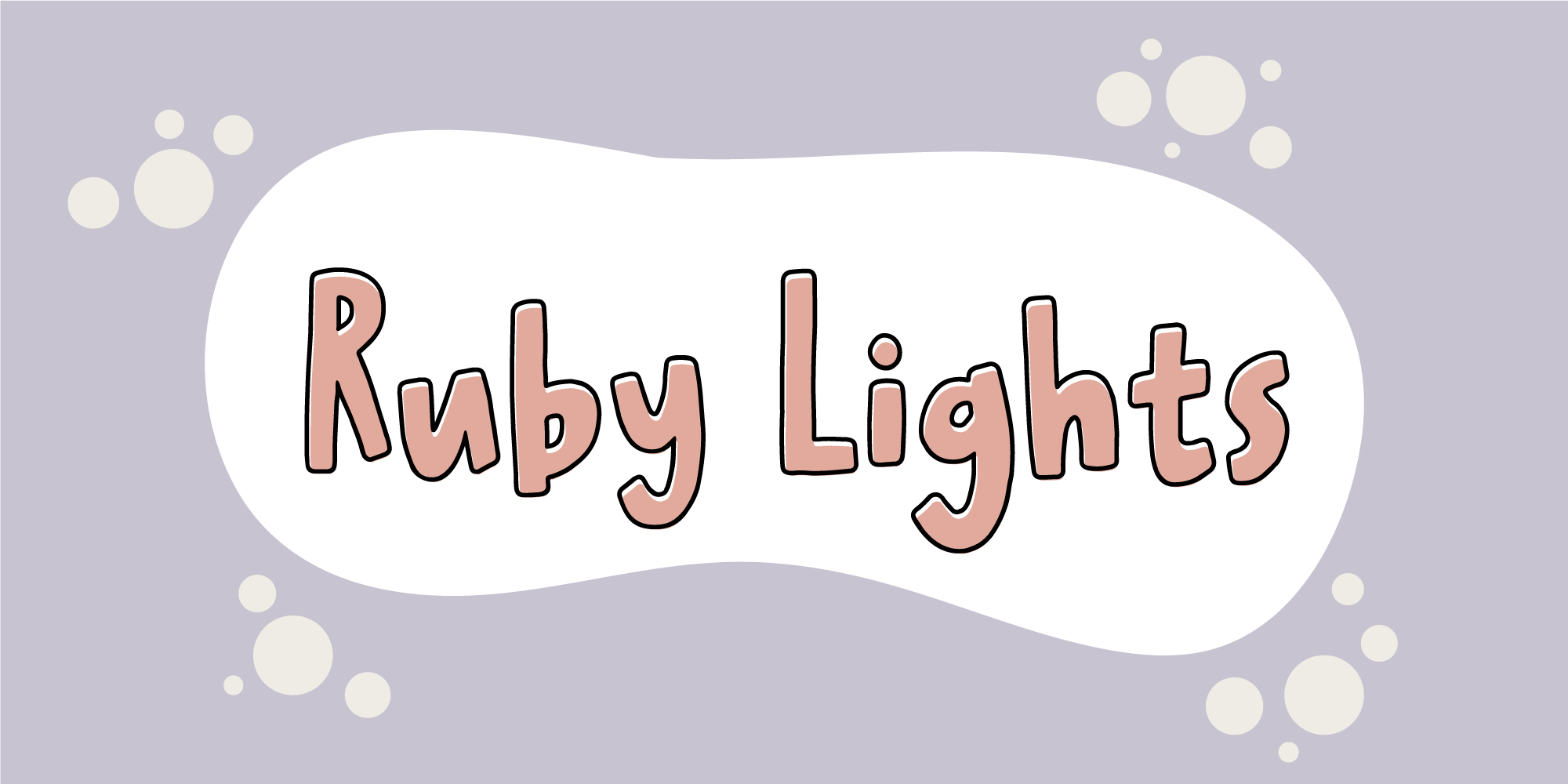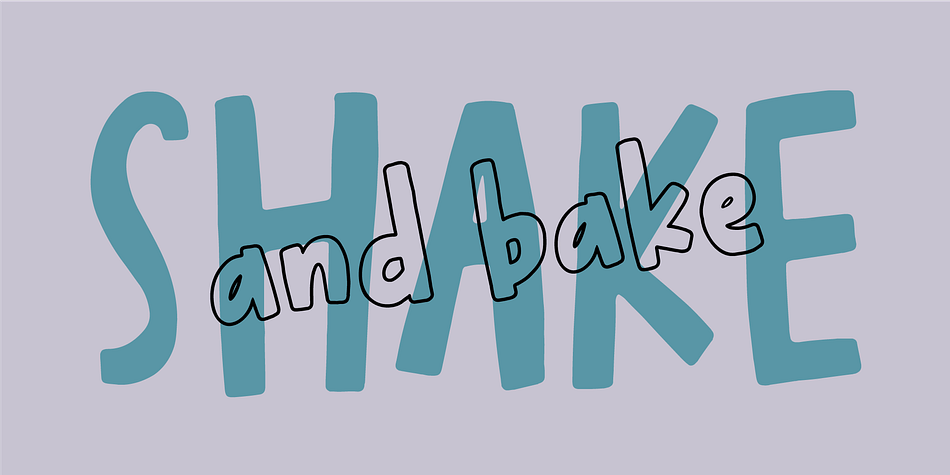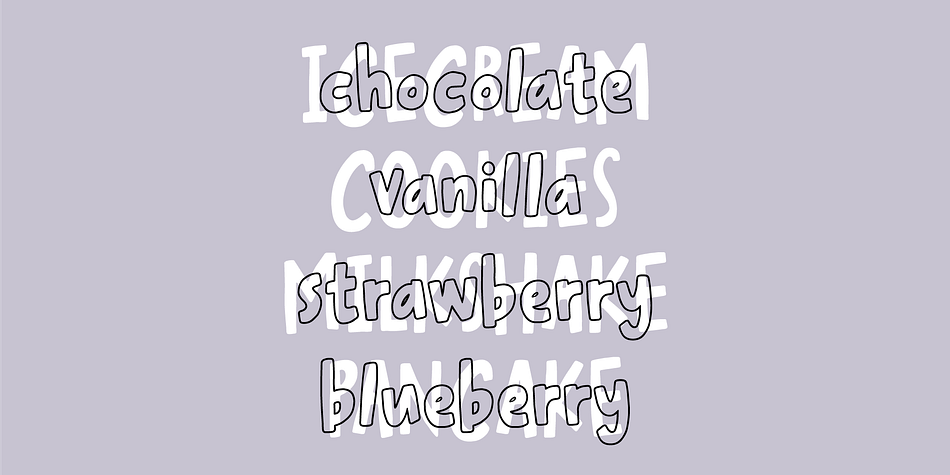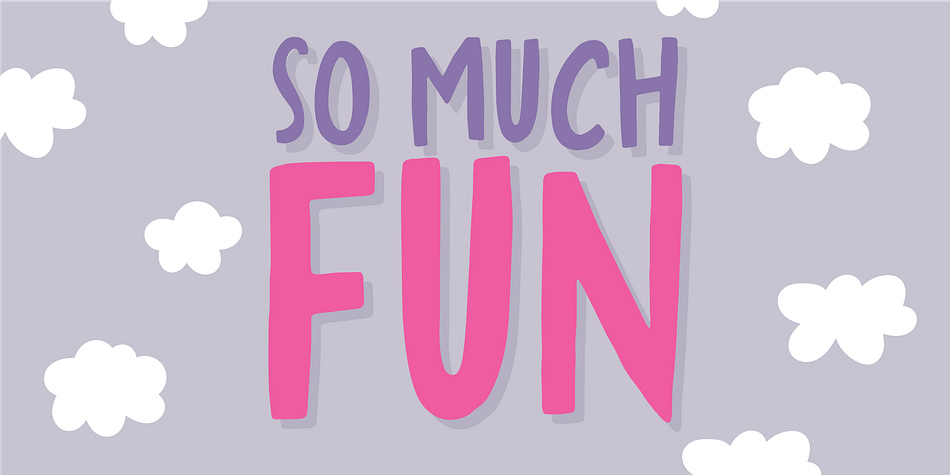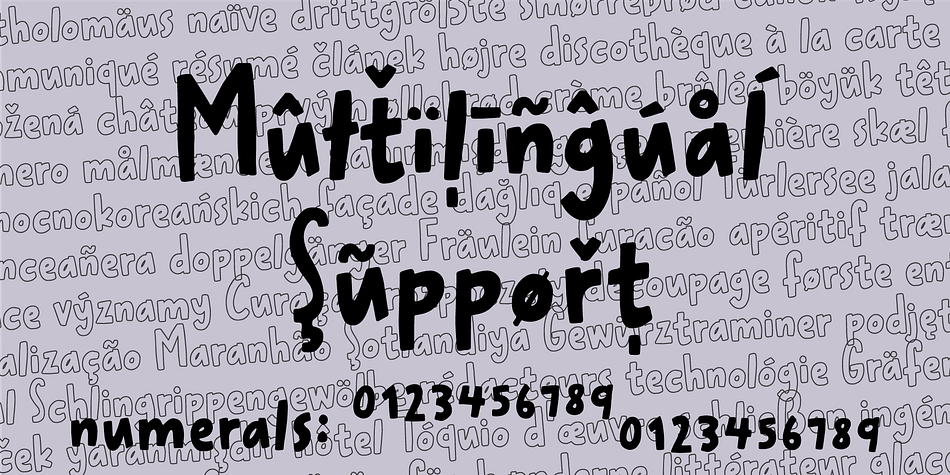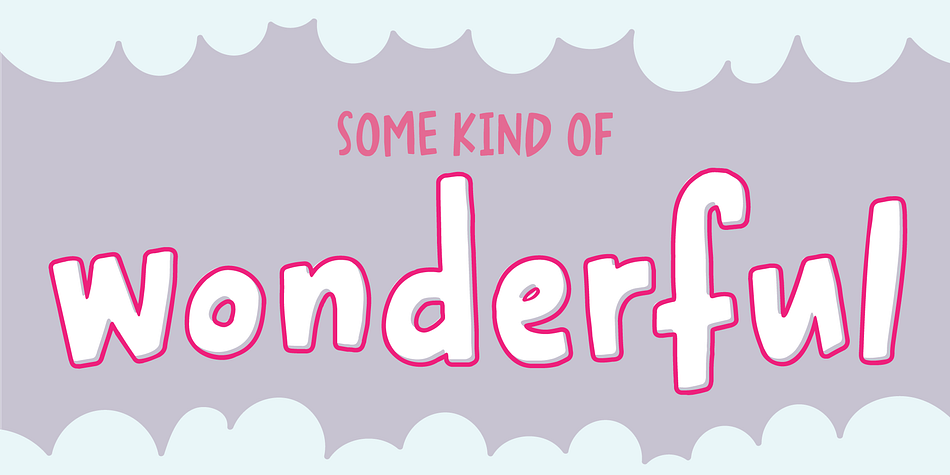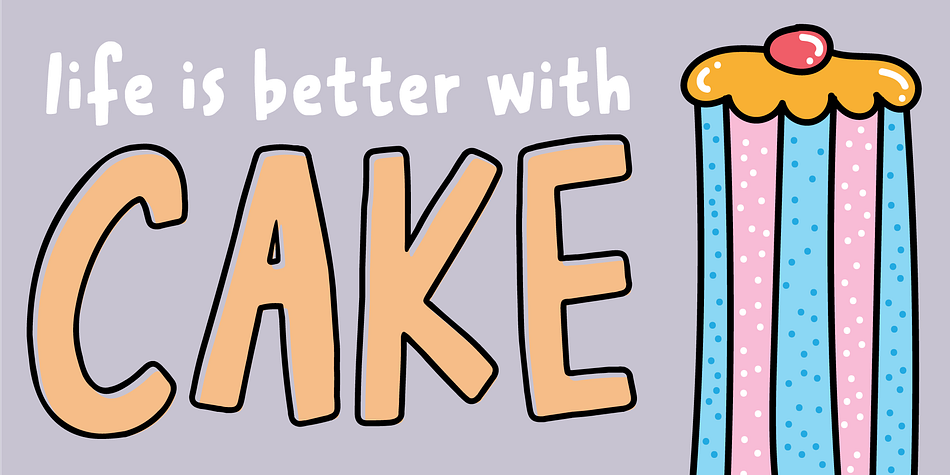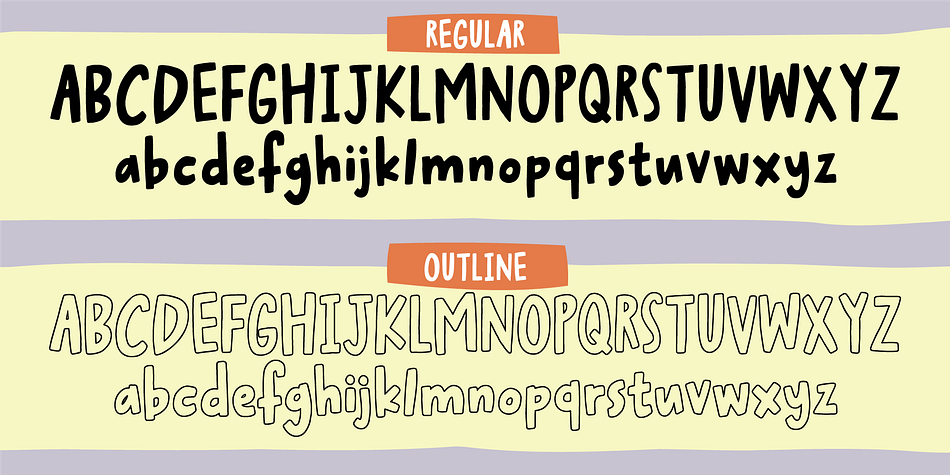
Ruby Lights
Designed by Jakob Fischer, Ruby Lights is a hand drawn and kids font family. This typeface has two styles and was published by Bogstav.
Say hello to Ruby Lights -  a bold rounded font, made to bring fun and joy to your designs!
Ruby Lights has no sharp edges, everything has gentle rounded corners and edges, leaving a soft yet vibrant look.
Go ahead and use Ruby Lights for your children’s books, posters of any kind, invitations or maybe packaging - actually anything that needs a fresh handmade attitude!